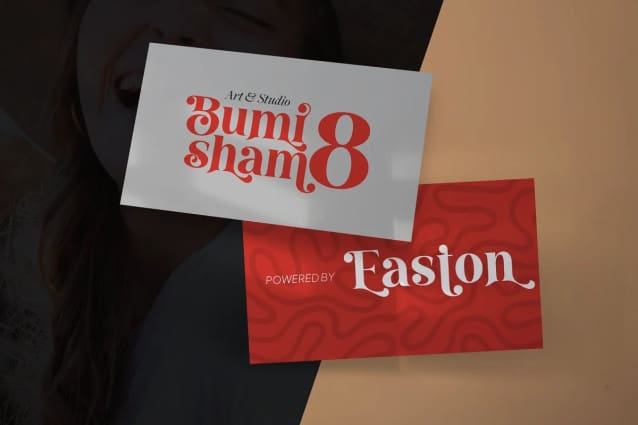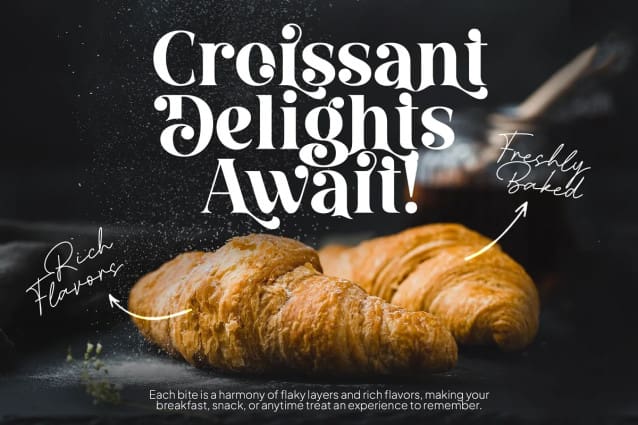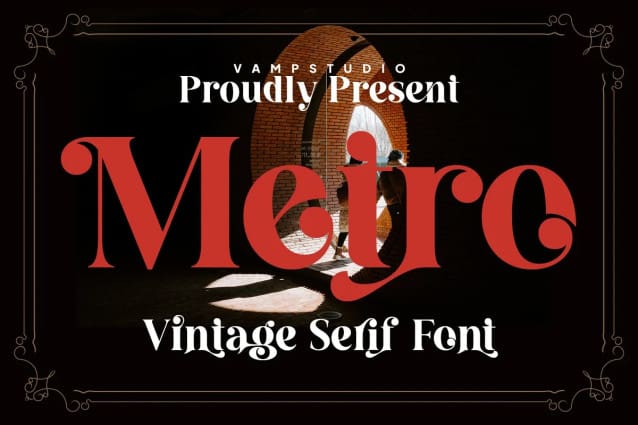
Metro Serif Font
Metro Serif Font, is a Vintage elegant serif typeface. This font looks very simple, clean, and elegant. Specially designed by skilled hands makes this font is the perfect fit for all your big projects.
Metro Regular is perfect for branding projects, logo, wedding designs, social media posts, advertisements, product packaging, product designs, label, photography, watermark, invitation, stationery and any projects that need handwriting taste.